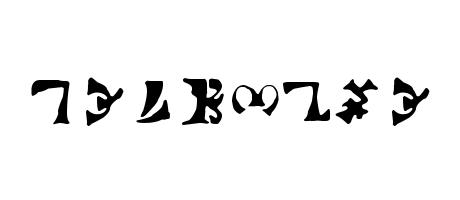
Enochian
Enochian, a mystical script, evokes arcane power. Its glyphs, a blend of angular and organic forms, resemble ancient runes or sigils. Sharp lines intertwine with rounded curves, creating a sense of both strength and mystery. The characters hint at a hidden language, filled with symbolic weight and enigmatic meaning. Each symbol feels both powerful and subtly elegant.